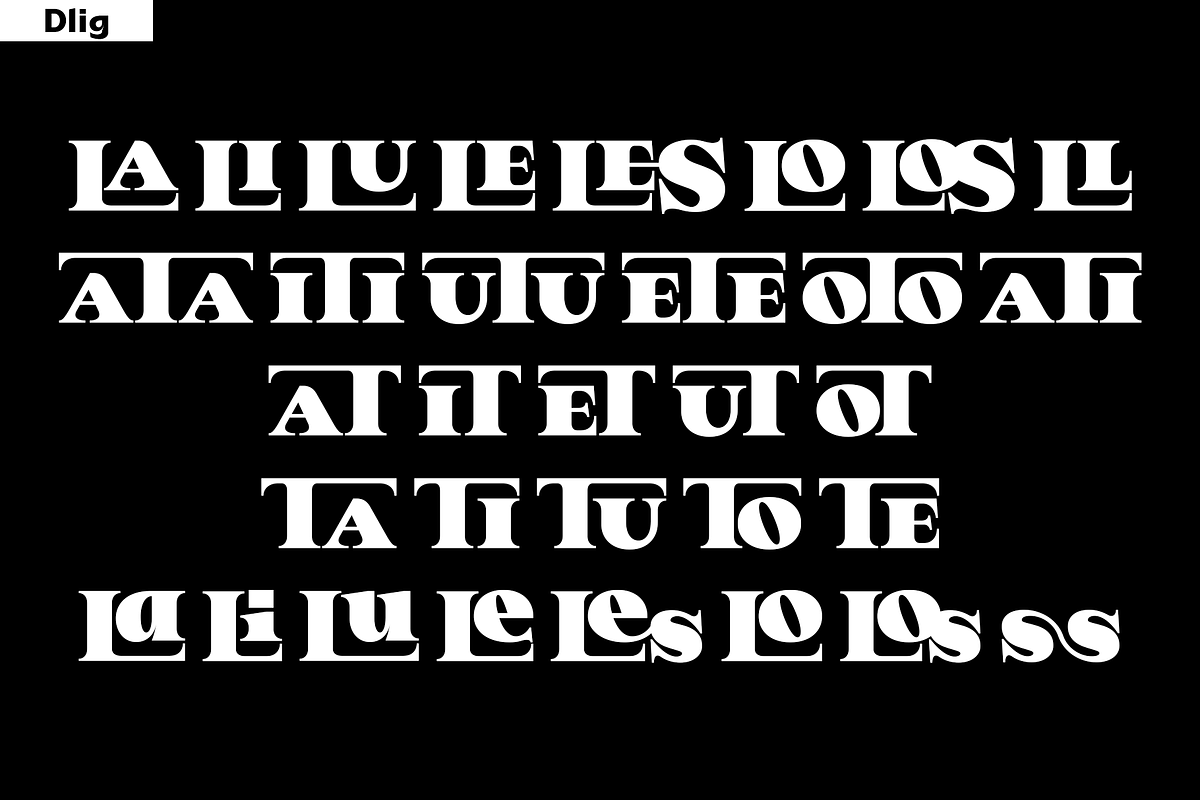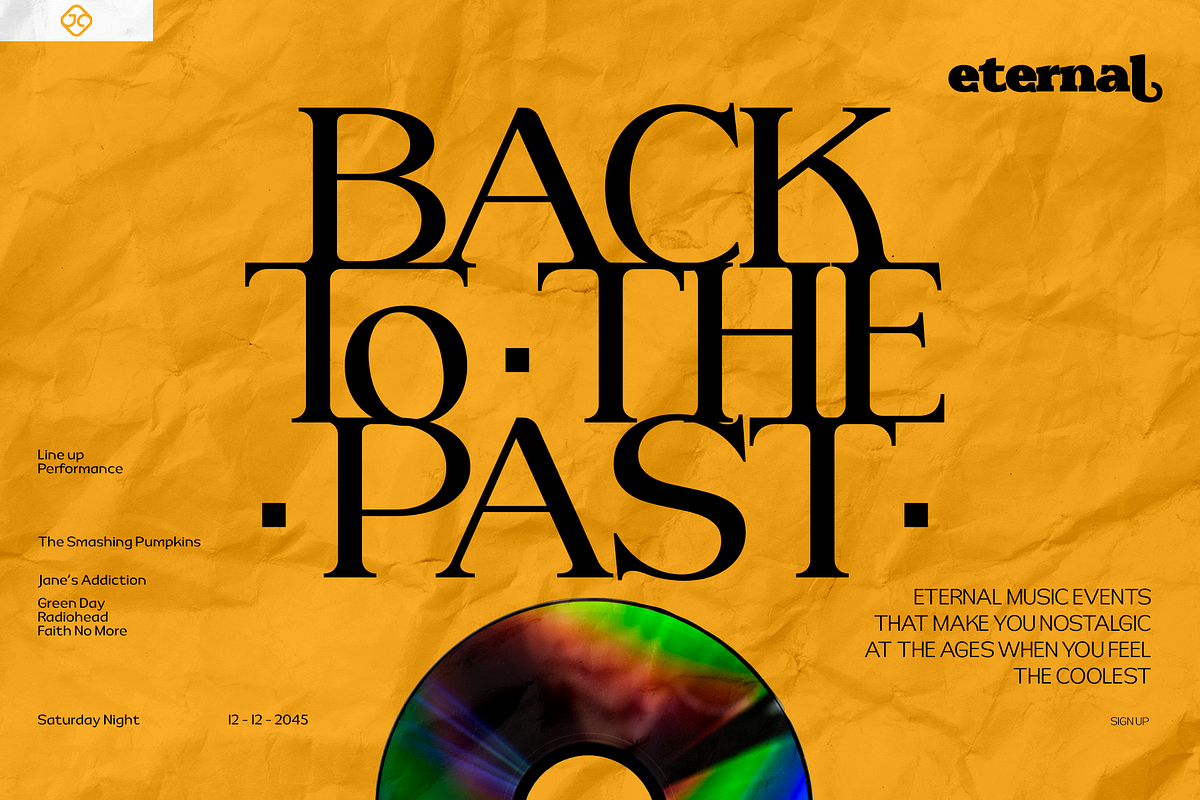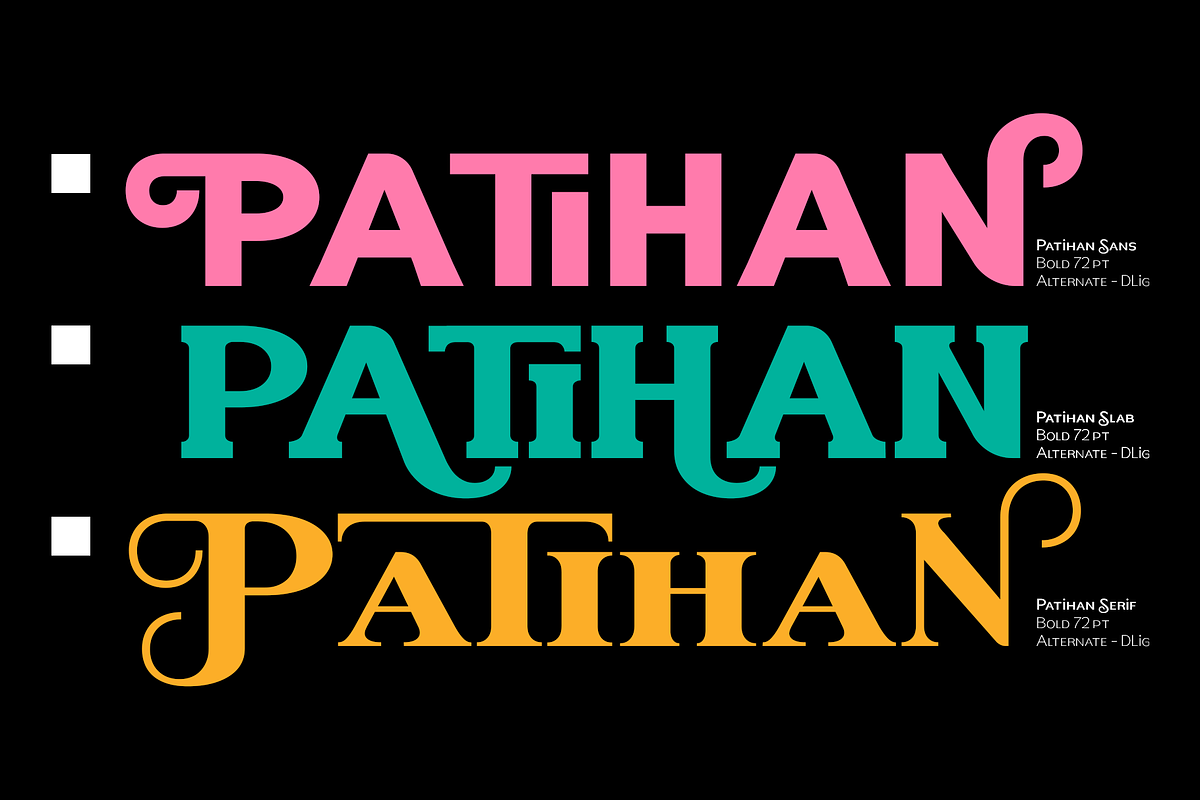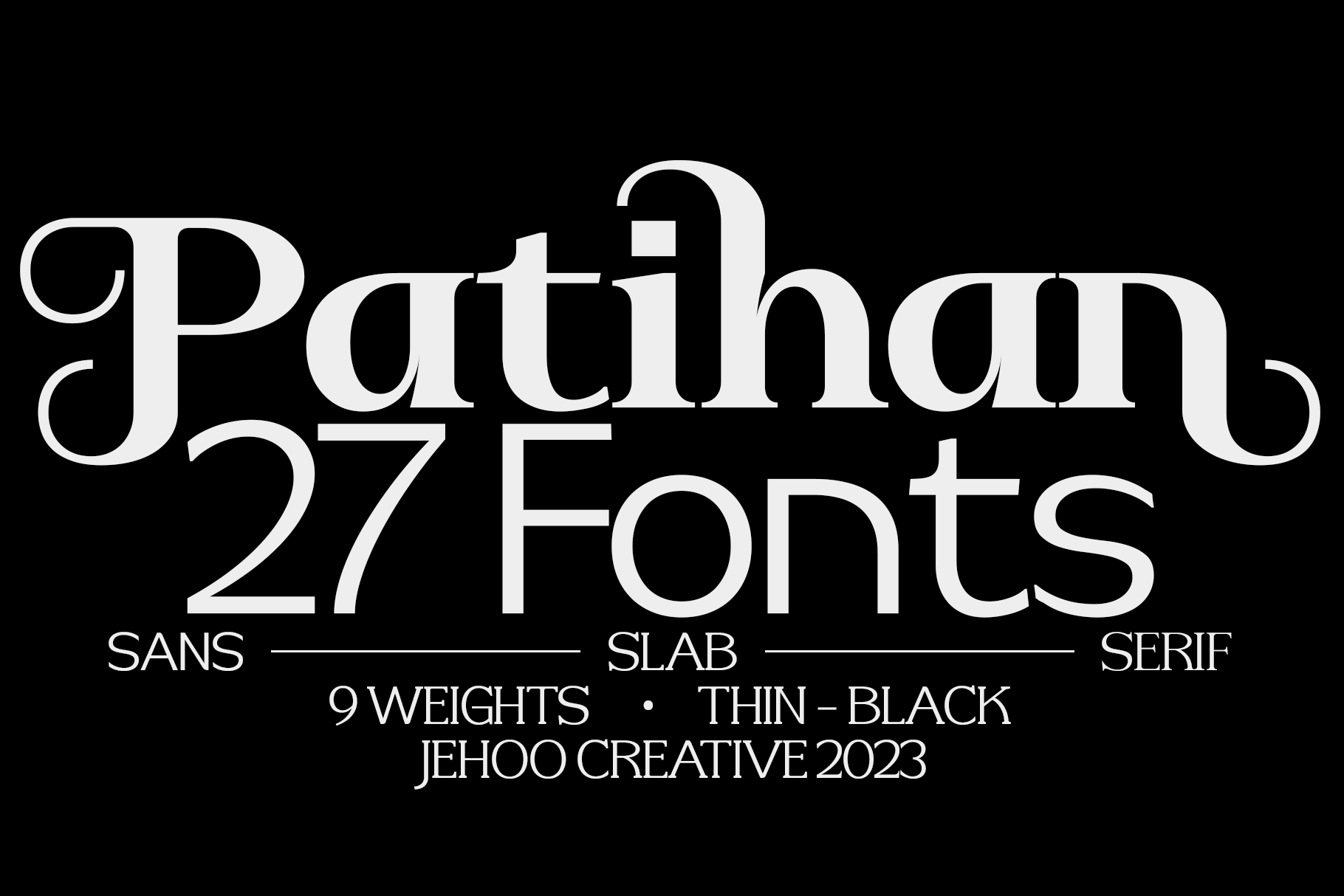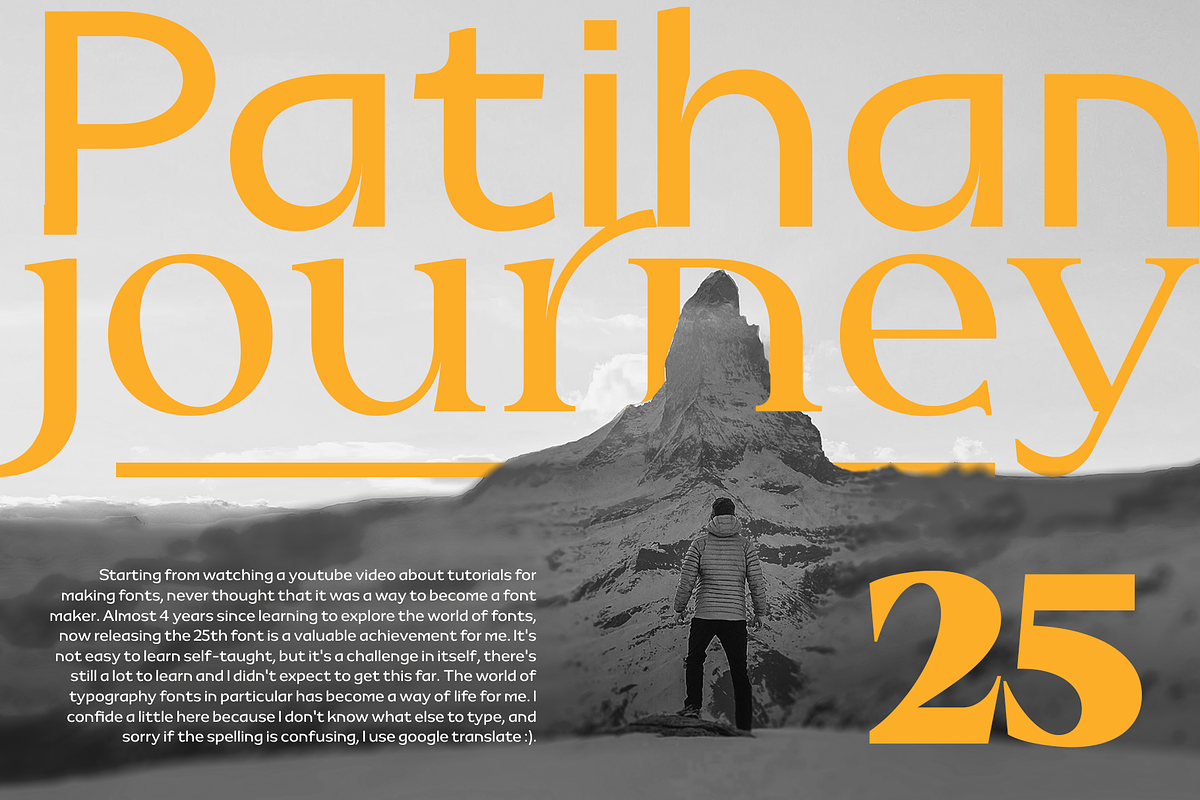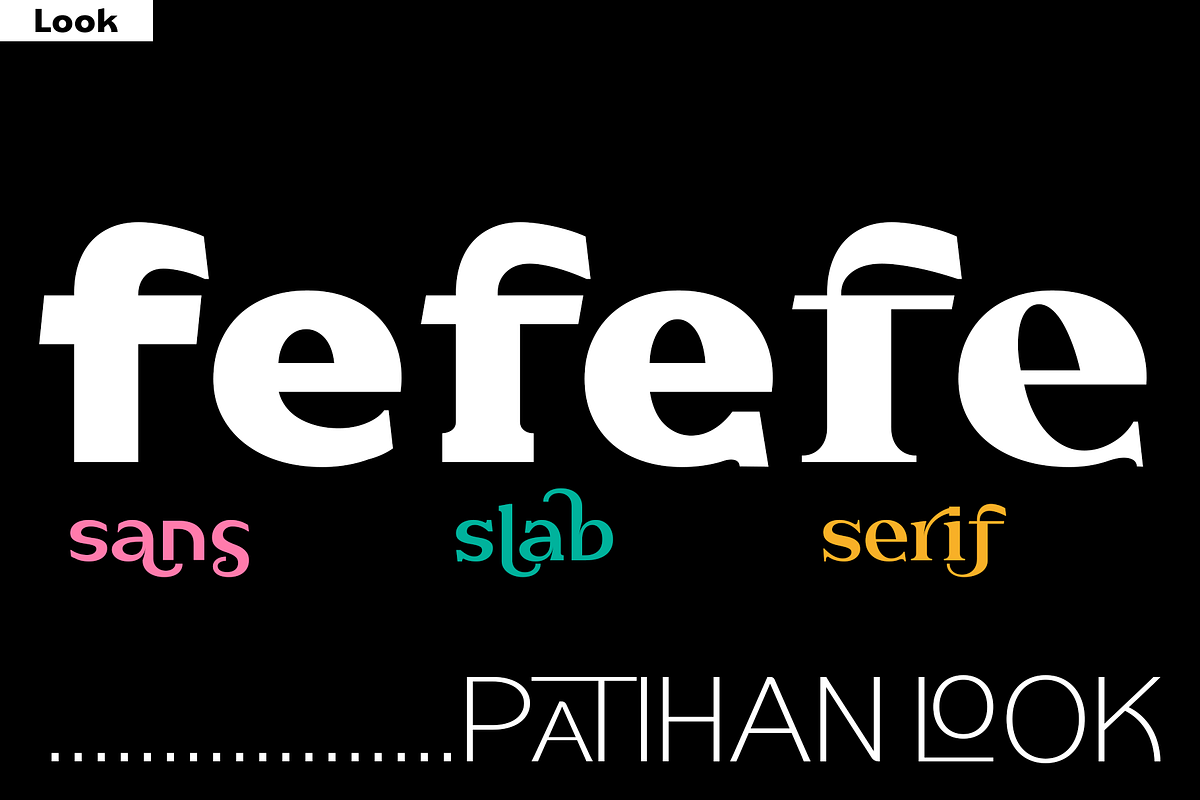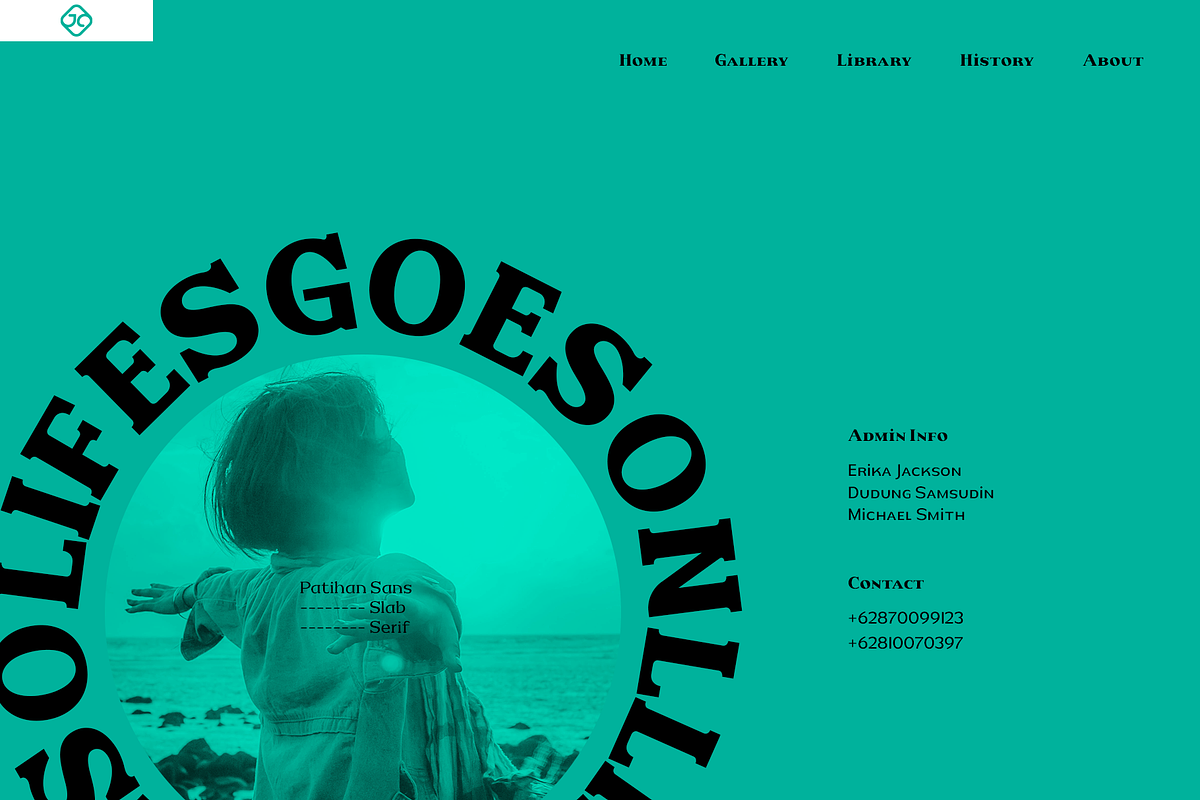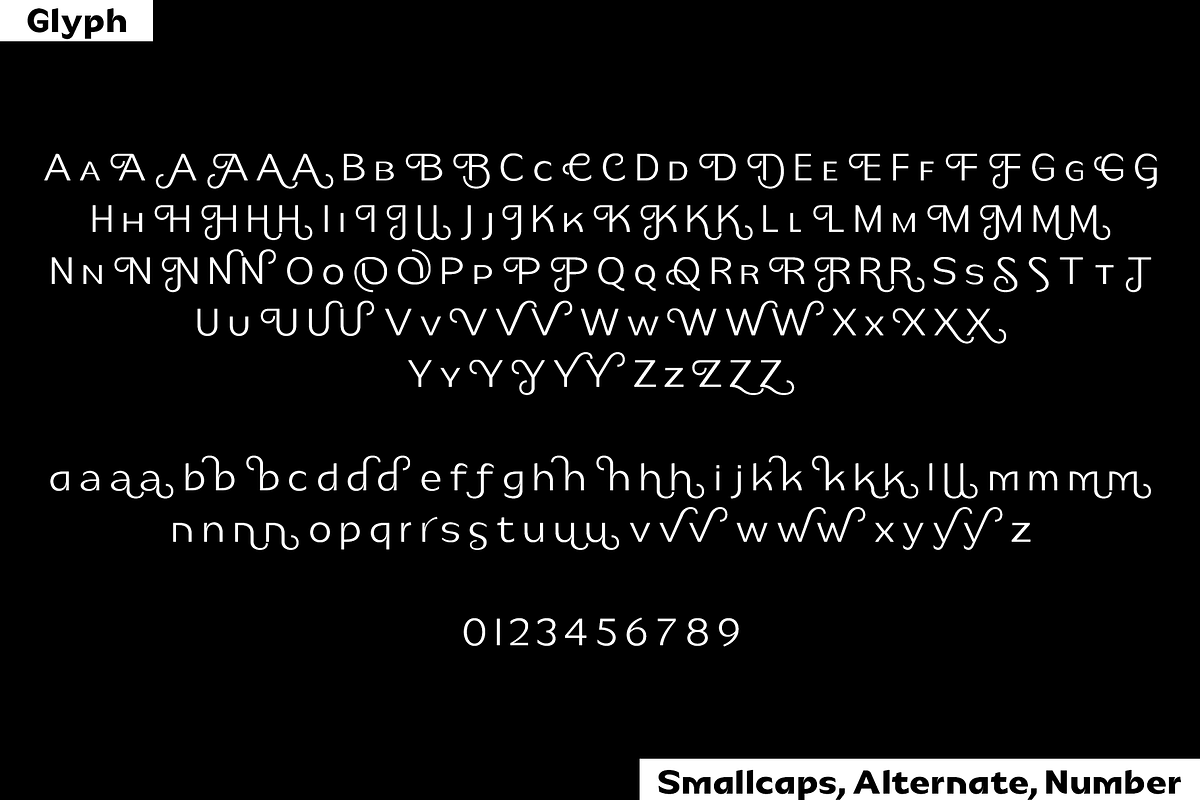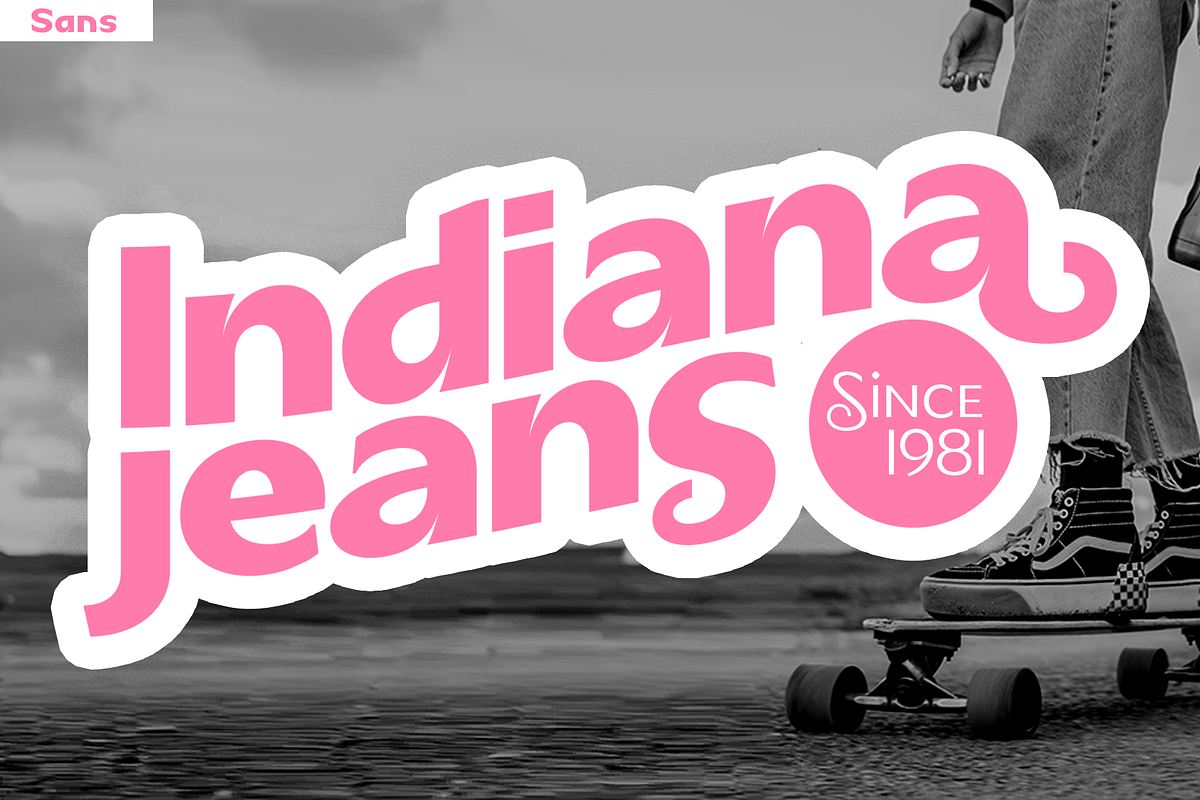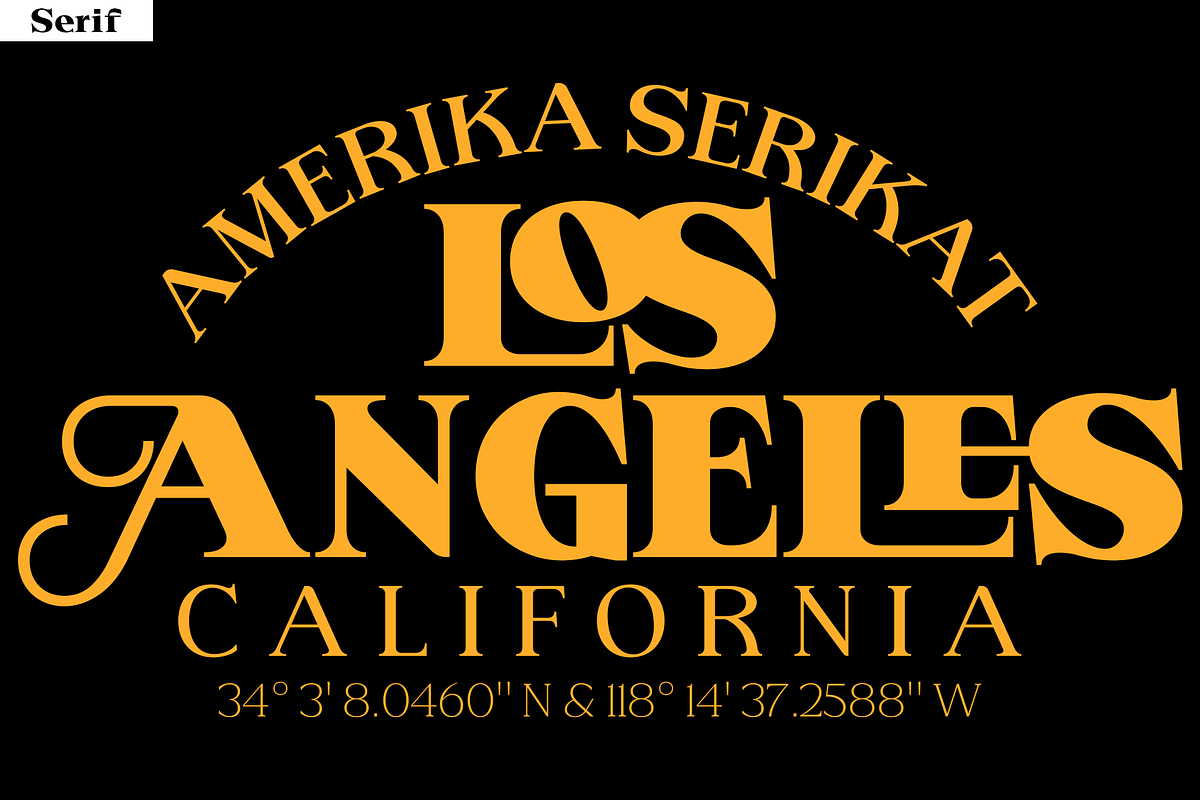
Patihan 27-Font Family
Introducing Patihan, the font that will bring your designs to life! With sharp, strong, bold characters.
Patihan font family is a combination of three different styles – Sans, Slab, and Serif – each with nine different weights: Thin, Extra Light, Light, Regular, Medium, Semibold, Bold, Extrabold, and Black. This font has beautiful Ligature and Stylistic Alternate settings, Patihan font is also equipped with the Smallcaps feature which gives more control over the typography, allowing you to create elegant and unique typography.
Sans version of this typeface is versatile and easy to read, with a minimalist but impactful aesthetic. The Slab version is characterized by its solid, powerful strokes, while the Serif style has that extra classic flair with elegant curves and extreme contrast to its look.
Patihan font is optimized for readability, making it a great choice for headlines, titles, and any long-form content. Ligature settings and discretionary styling add an extra layer of sophistication, making this font a great choice for magazines, branding and advertising.
Overall, this font is a great choice for those looking to make a lasting impression. Its versatility, readability and unique features make it an excellent choice for any project.